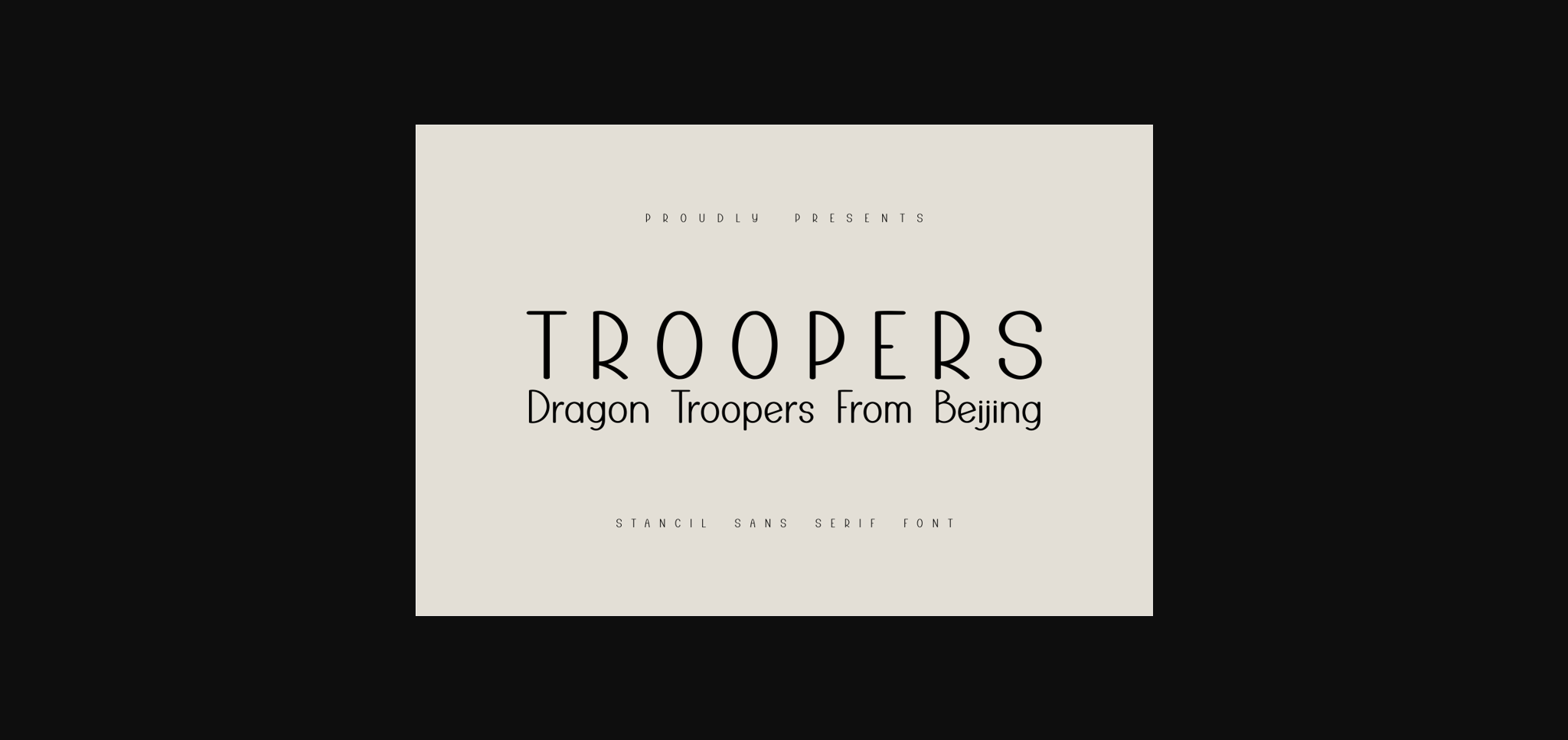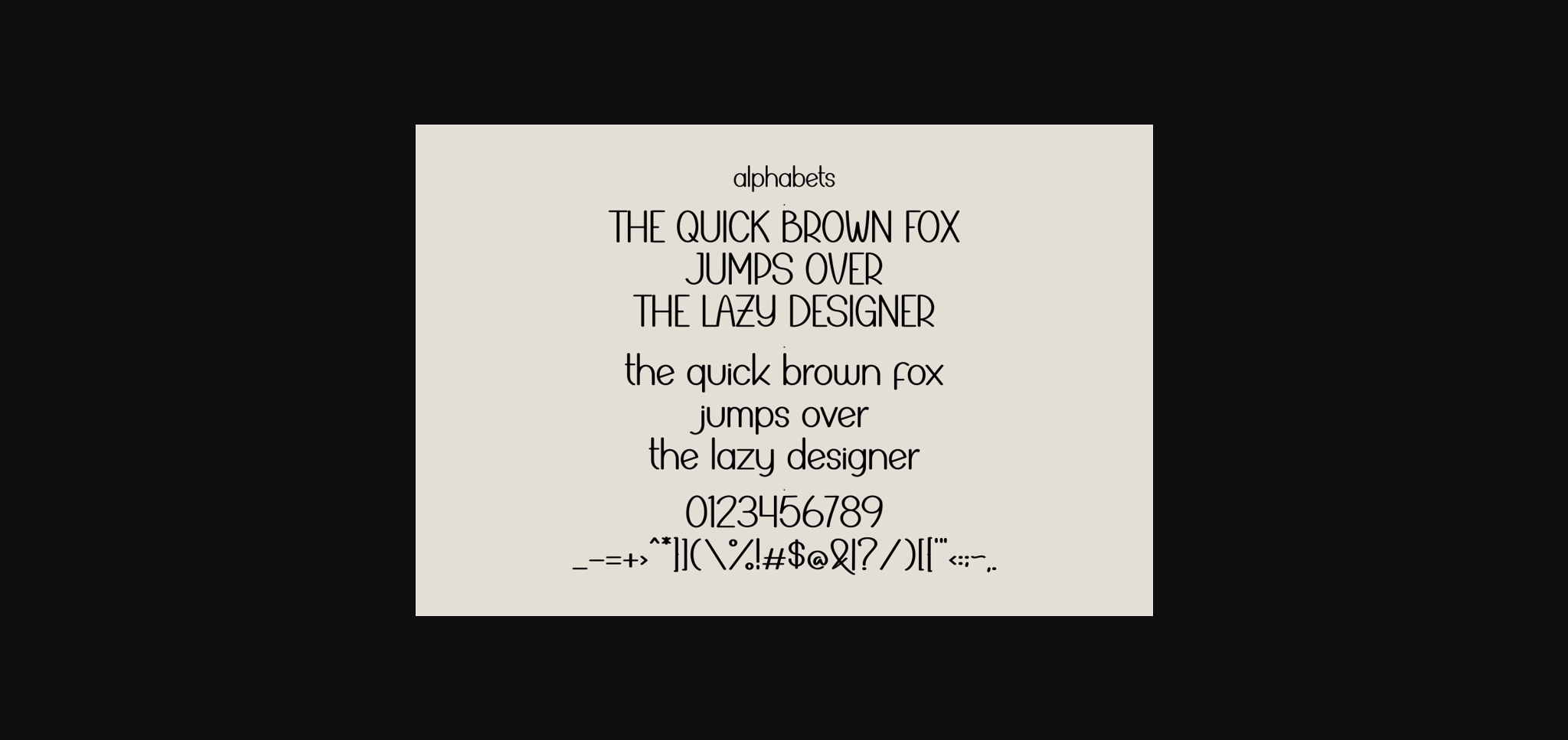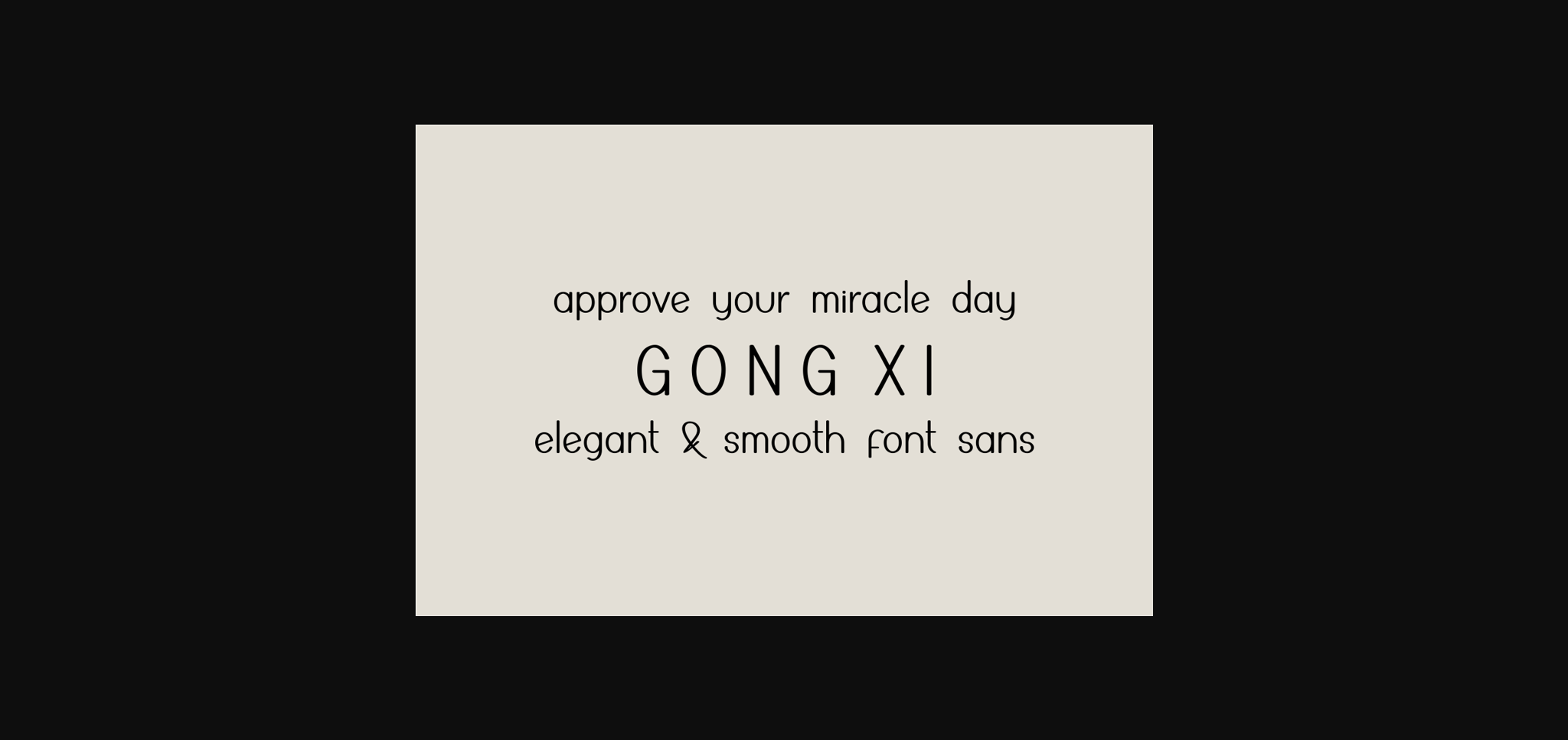
Dragon Troopers Font
About Dragon Troopers Font
Dragon Troopers is a wide sans serif font that can be used for any product including food products, beverages, office equipment, construction, clothes, shoes, and so much more.